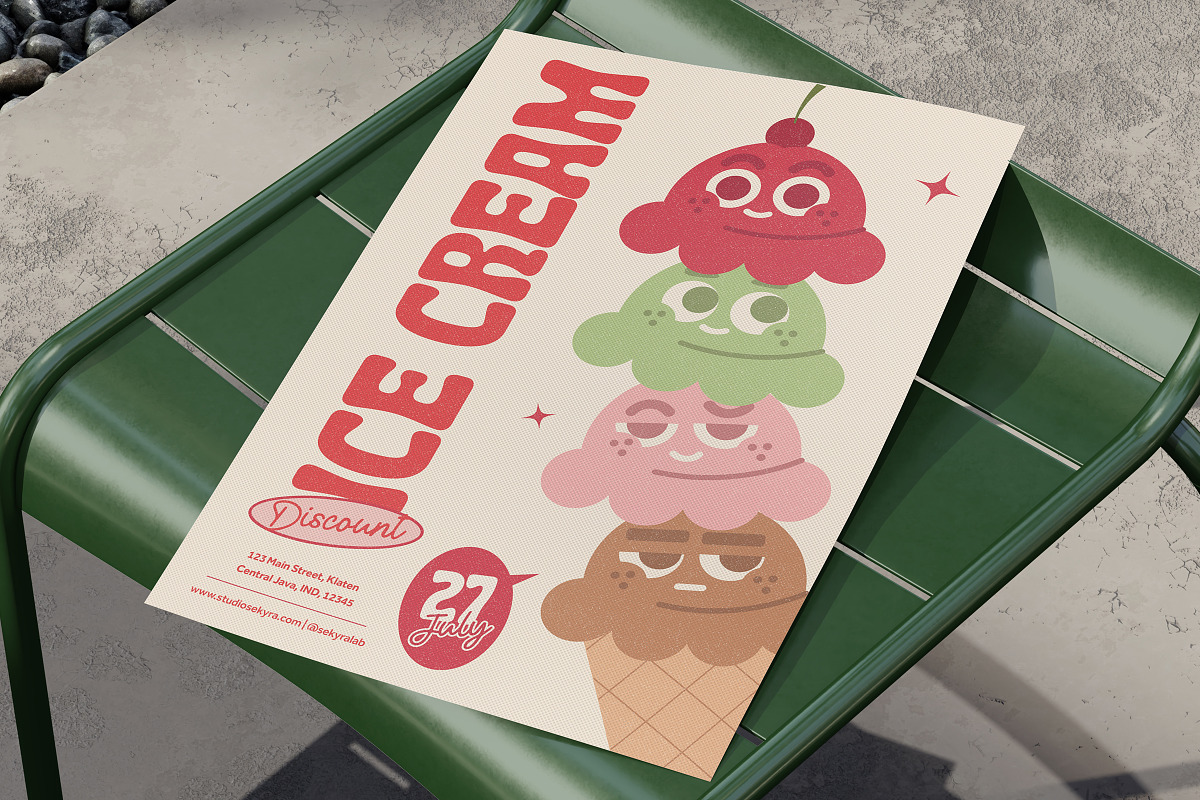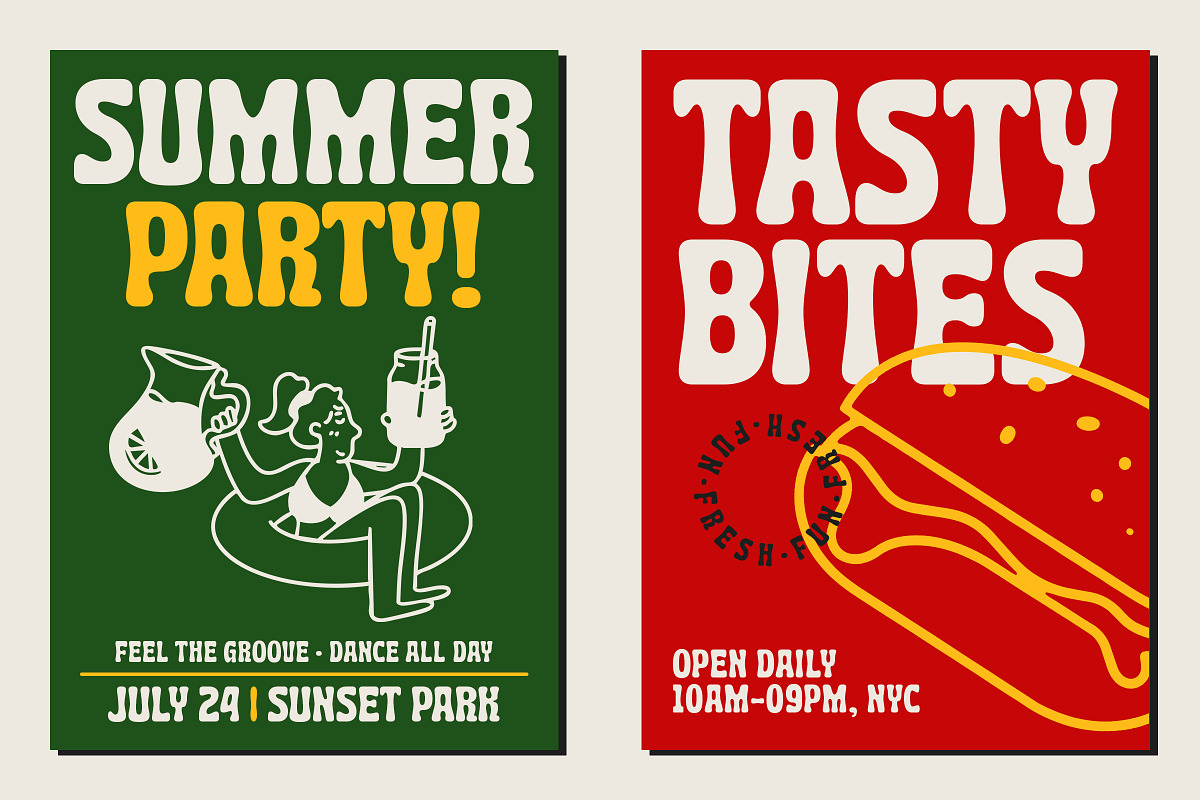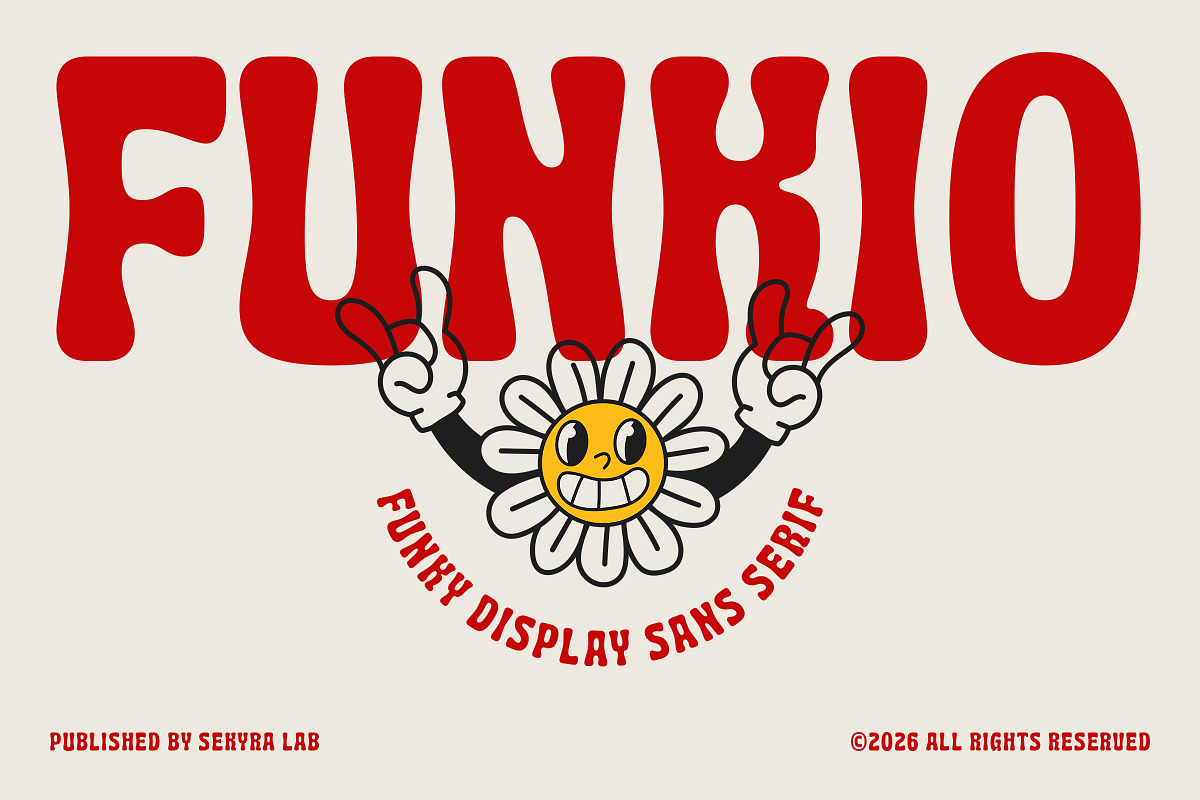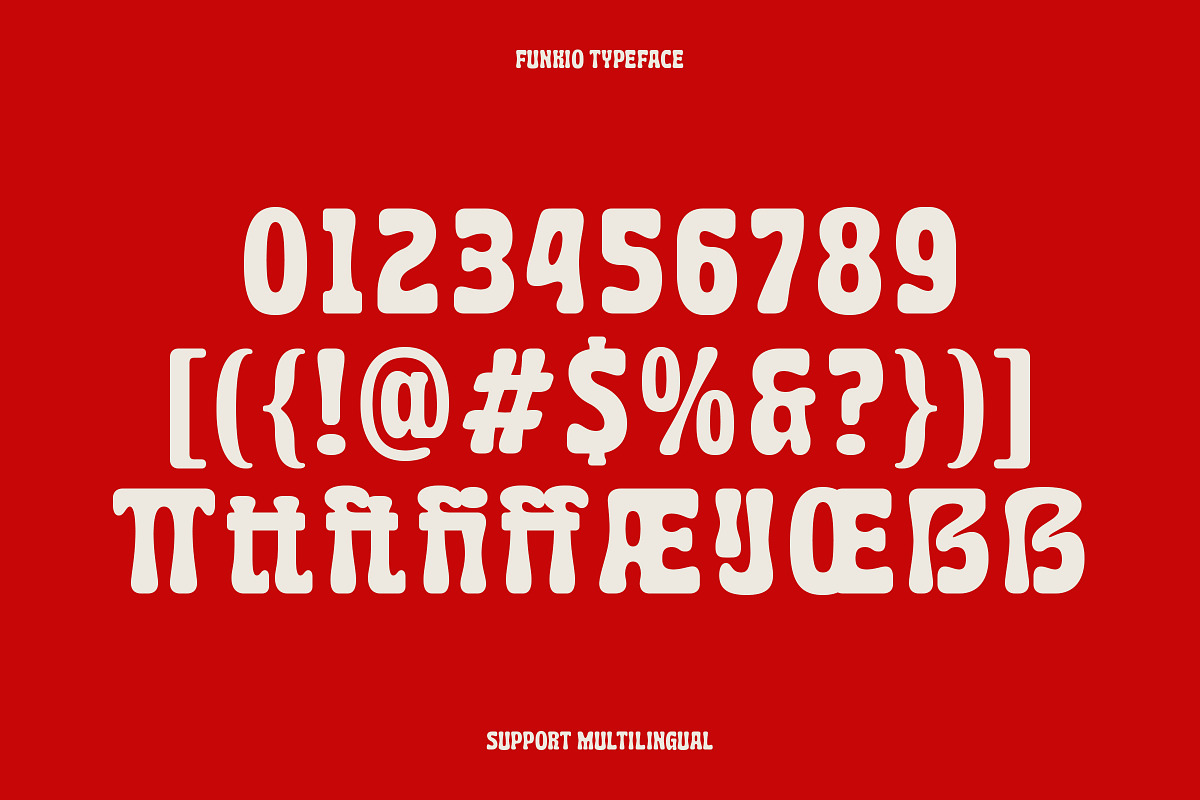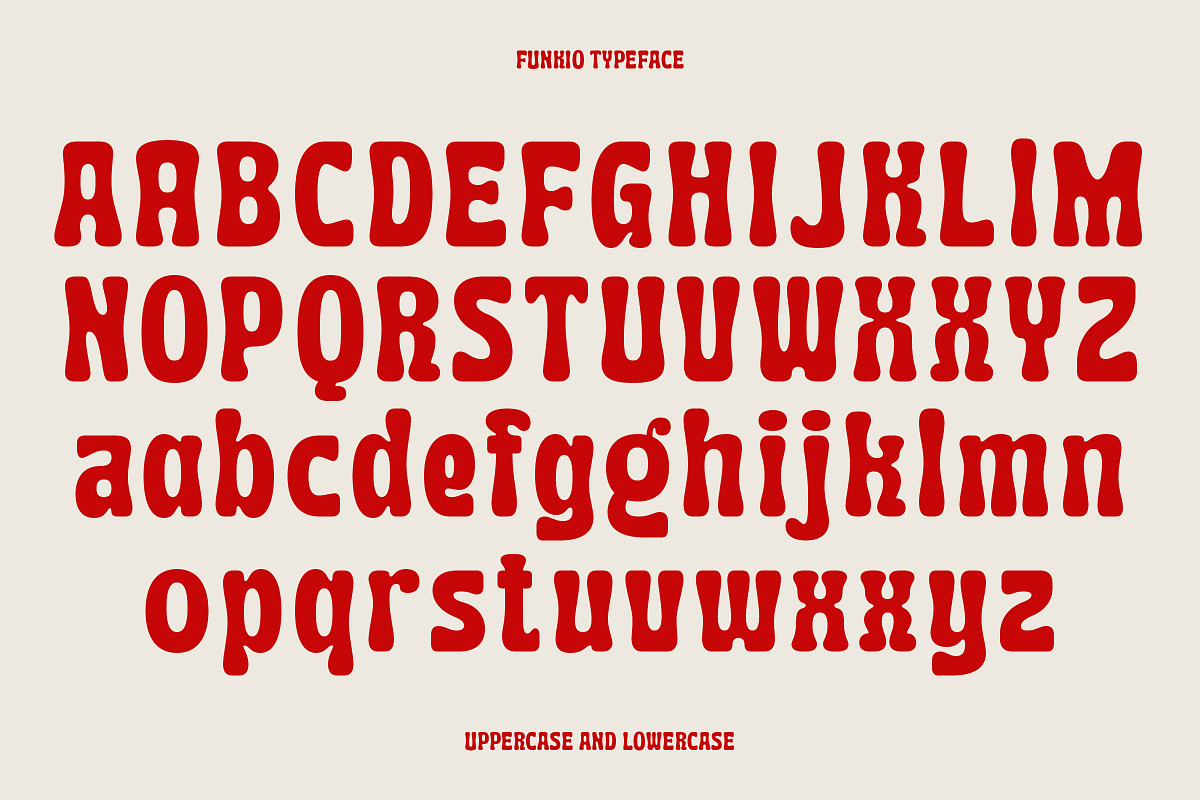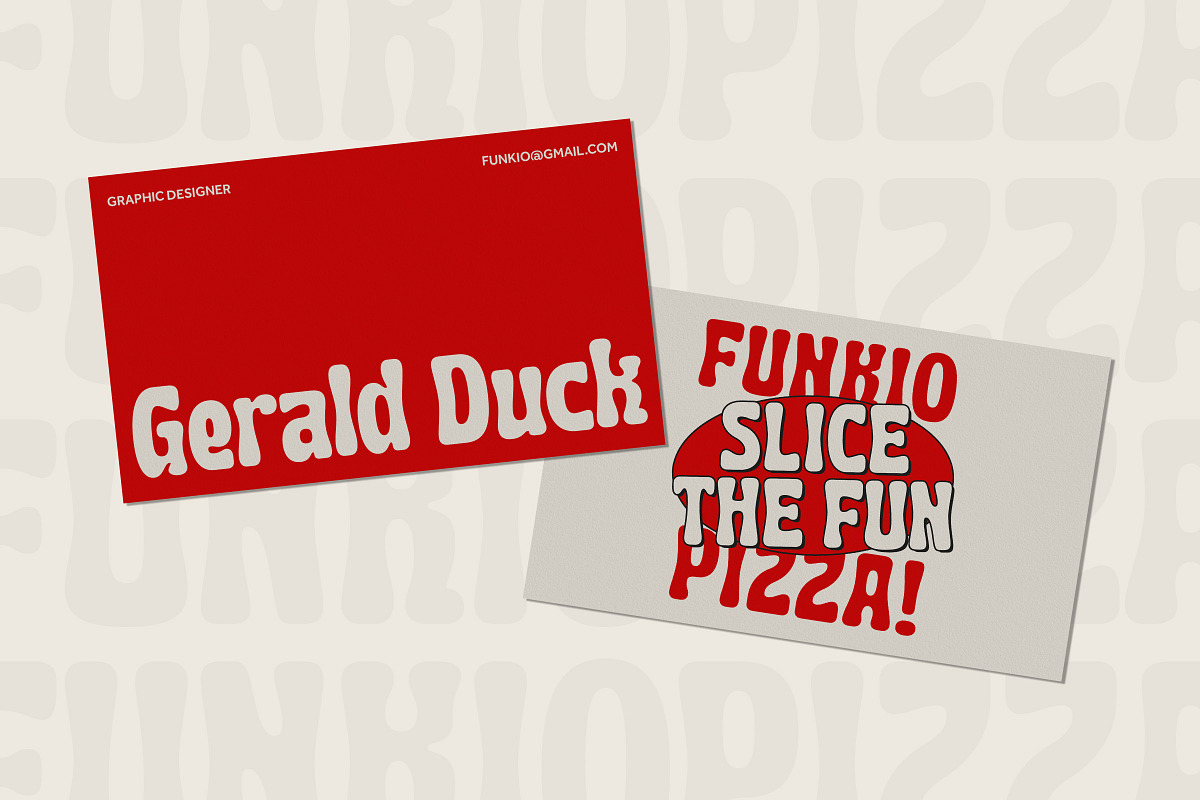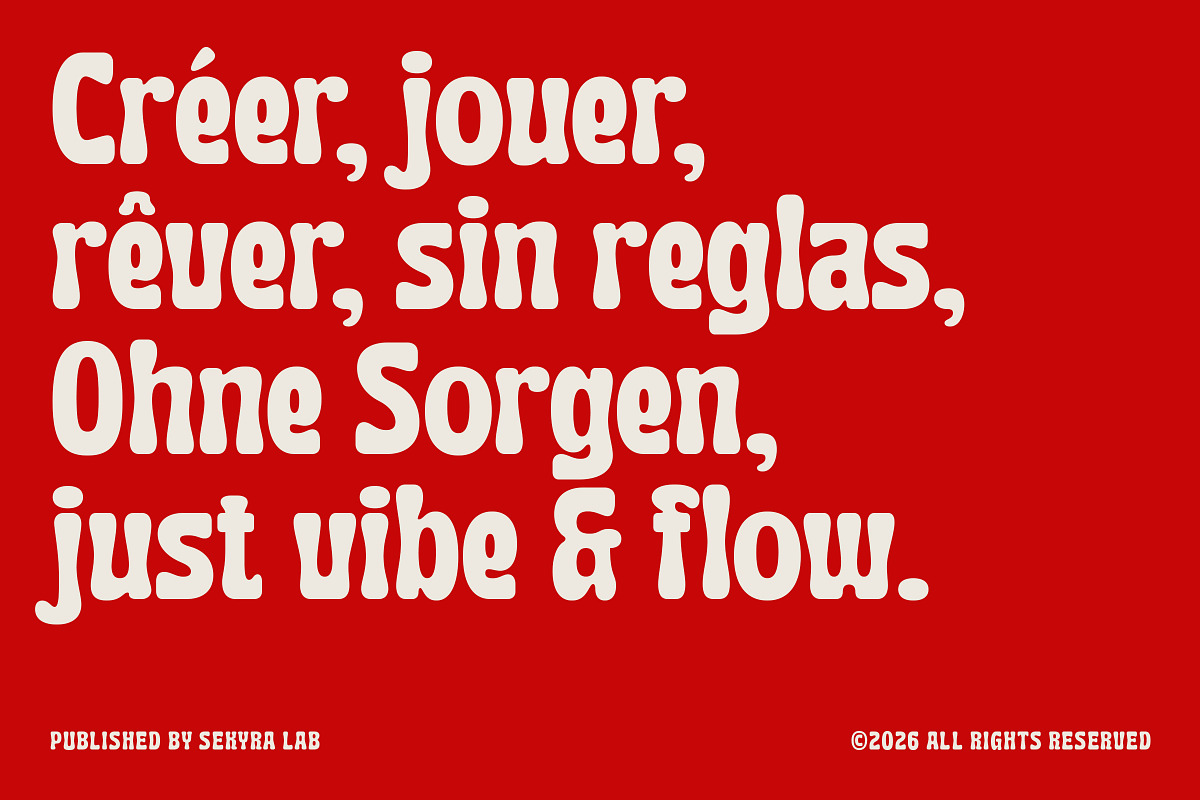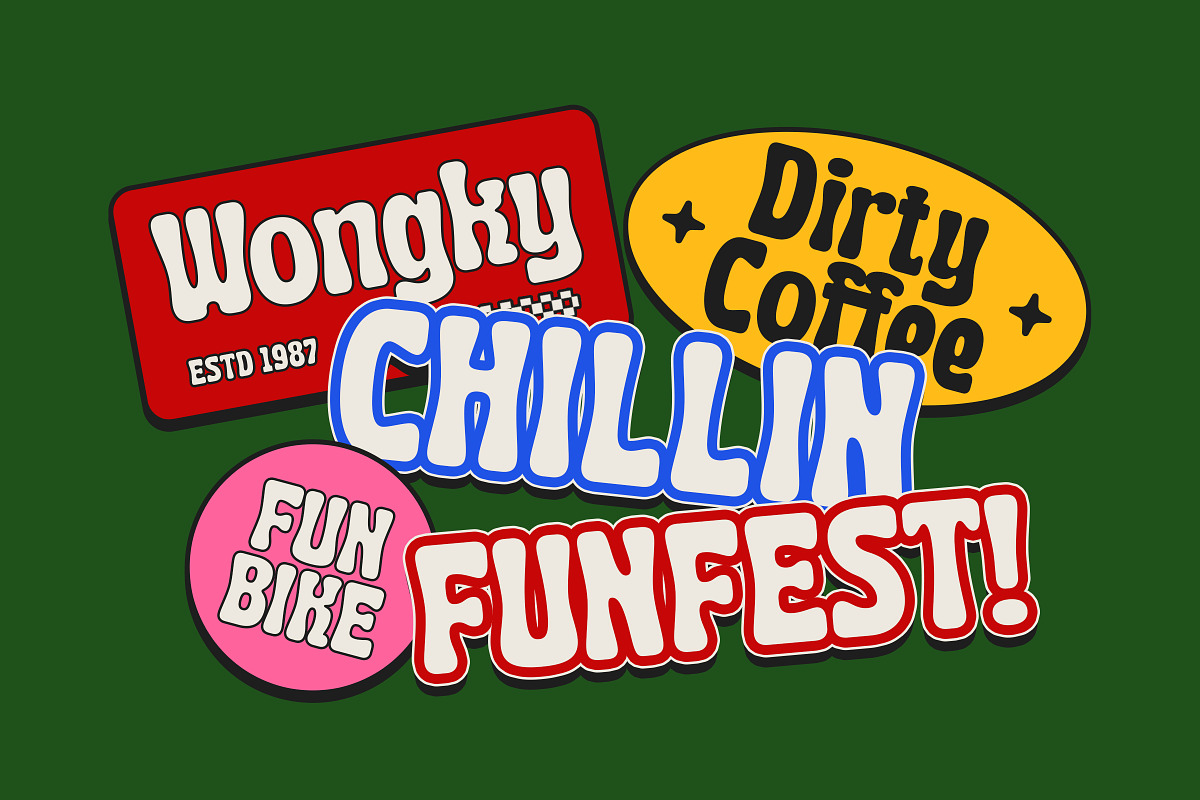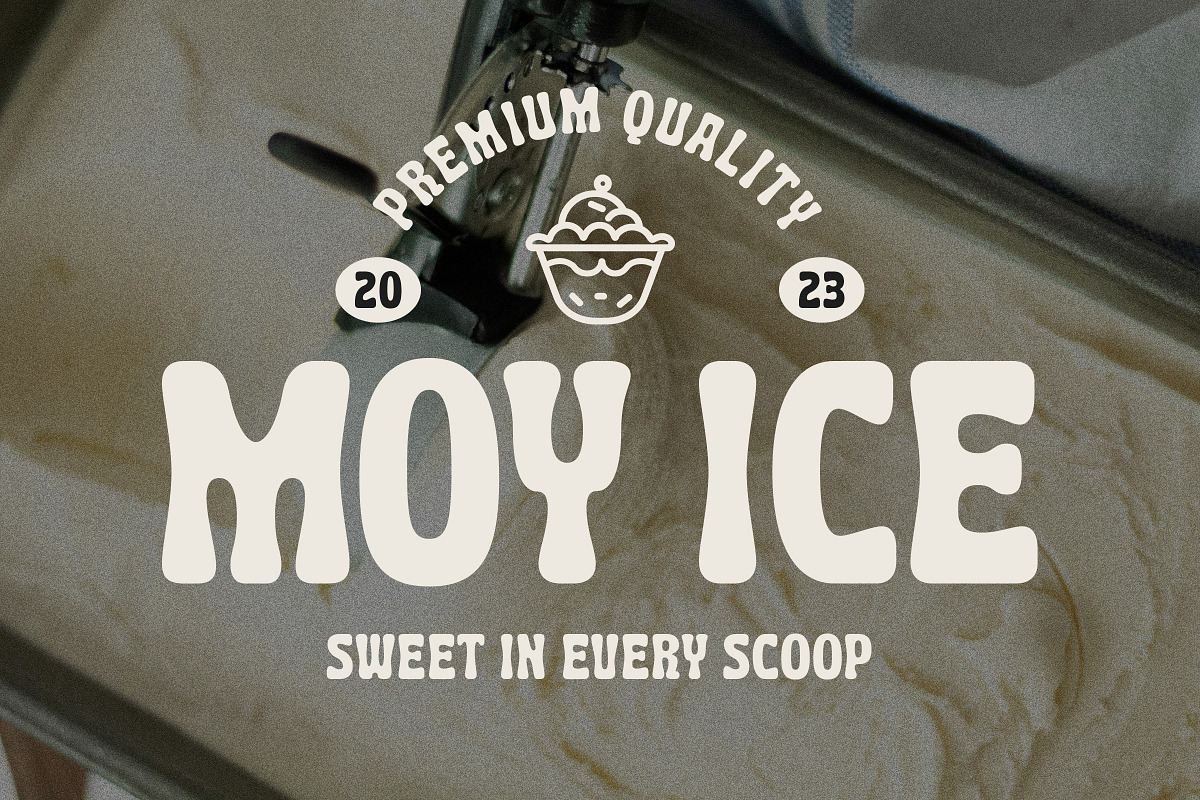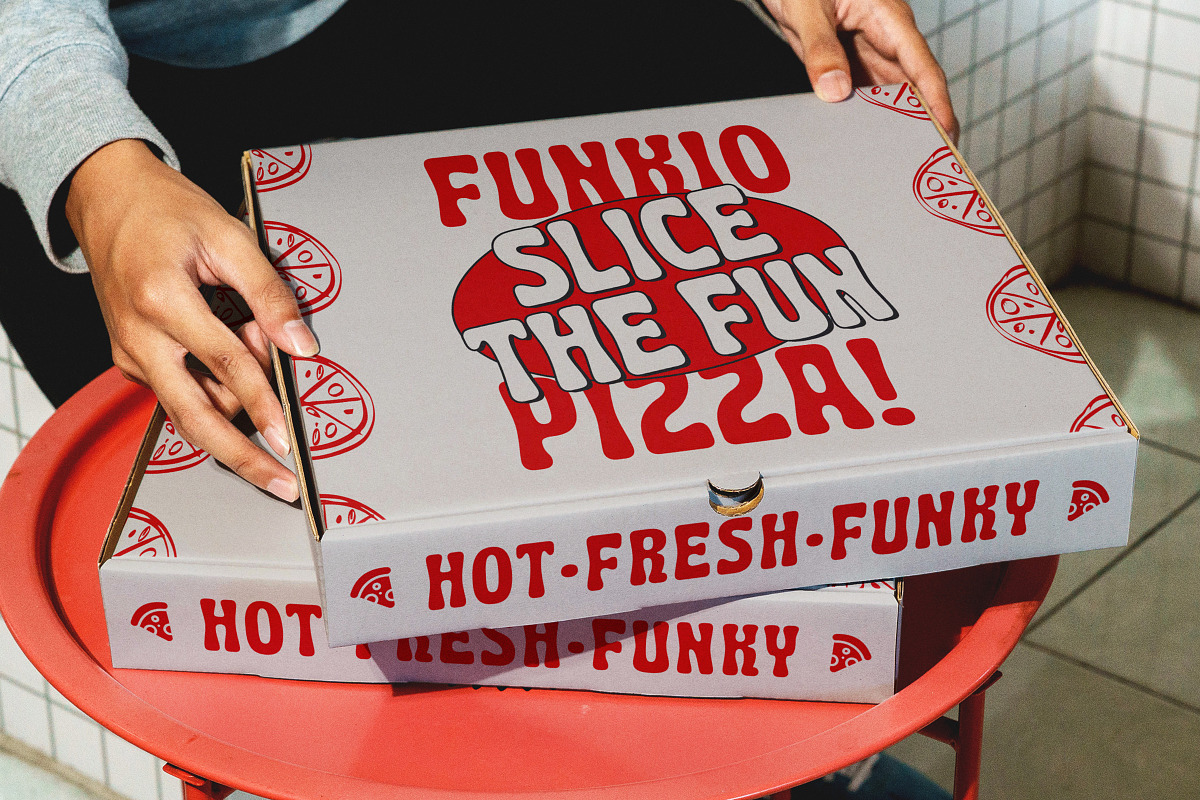
Funkio - Funky Display Sans Font
Funkio is a funky display sans font designed to bring fun and cheerful energy into your creative projects. With its bold rounded shapes, soft curves, and playful letterforms, this font delivers a strong visual impact while remaining versatile for various design needs. Whether you're working on branding, posters, or digital content, it helps your work stand out effortlessly.
This font is perfect for designers looking to create joyful, cartoon-style, and eye-catching visuals. Its unique style makes it suitable for both modern and retro-inspired designs, giving you flexibility across multiple creative directions. From bold headlines to lively layouts, it ensures your typography grabs attention.